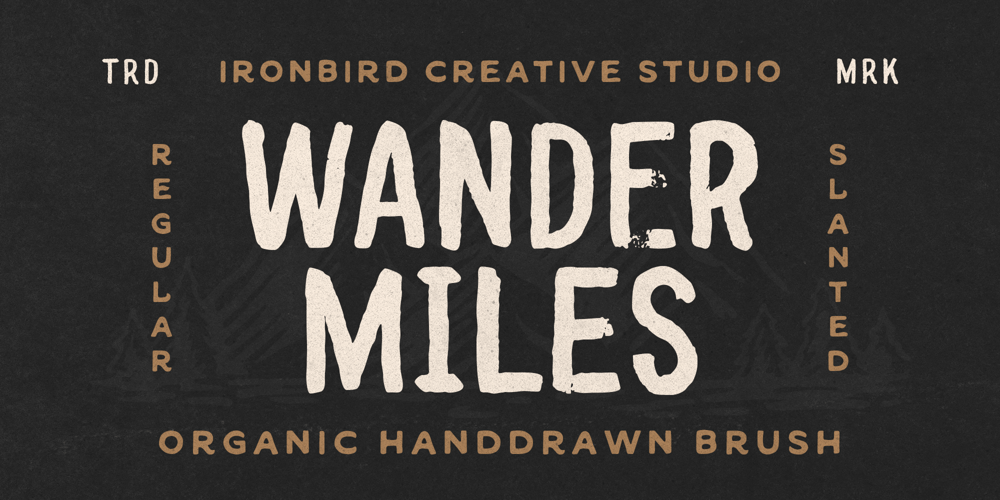
Wander Miles Font Family was designed by Septianto Nugroho and published by Ironbird Creative. Wander Miles contains 3 styles and family package options. Wander Miles, our handcrafted sans serif font that perfectly captures the essence of adventure. Inspired by the wild and the spirit of exploration, our font exudes an organic sense of authenticity. Its carefully crafted design reflects the ruggedness of nature, while maintaining a subtle and versatile appeal.